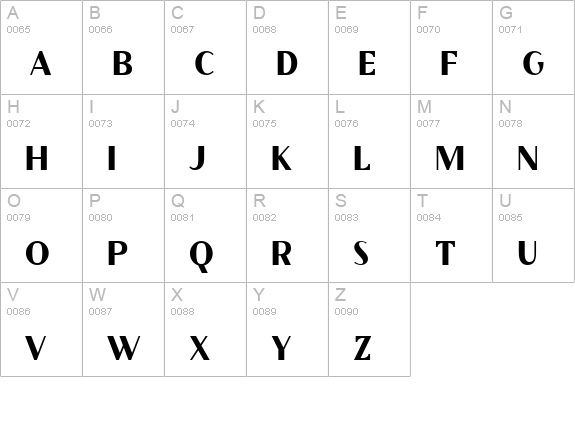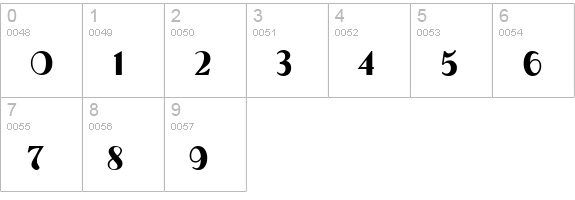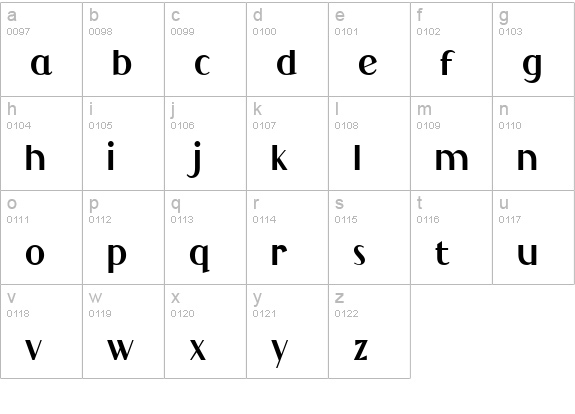
Grandecort Medium is a balanced, medium-weight variant in the Grandecort typeface family \xE2\x80\x94 well suited to sub-headlines, navigation, and balanced editorial work.
Grandecort Medium is a striking and elegant font that exudes sophistication and modernity. With its clean lines and balanced proportions, this typeface is perfect for a wide range of design projects, from branding to editorial design. The medium weight of Grandecort provides a harmonious balance between readability and impact, making it versatile and adaptable for various applications. What sets Grandecort Medium apart is that it is available for free download at FontsMarket.com. This means that designers and creatives can easily access and use this beautiful font without any cost, allowing for greater creative freedom and flexibility in their projects. Don't miss out on the opportunity to add Grandecort Medium to your font collection and elevate your designs with its timeless appeal.